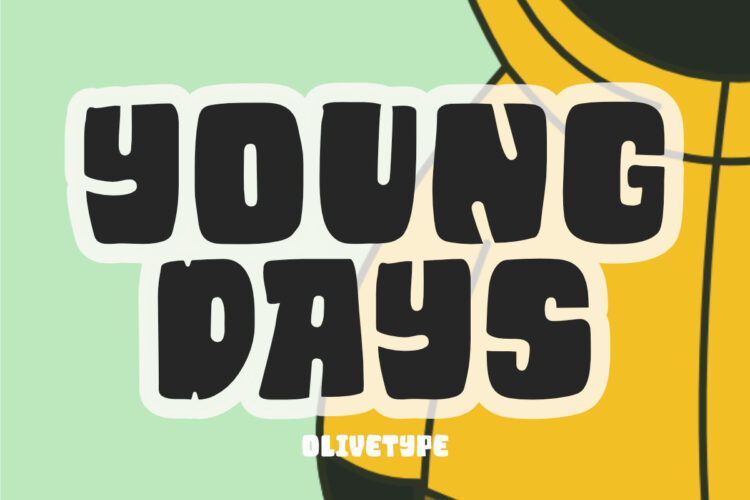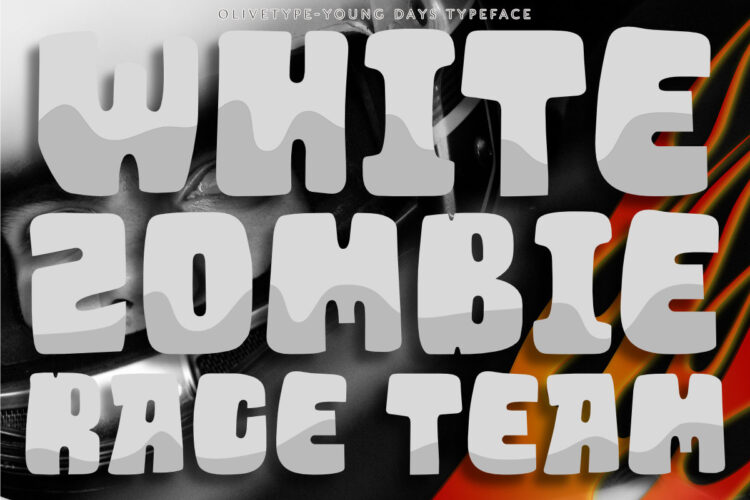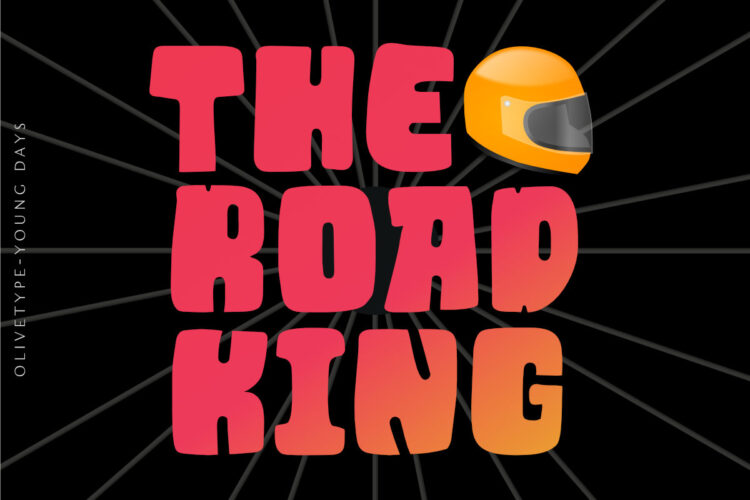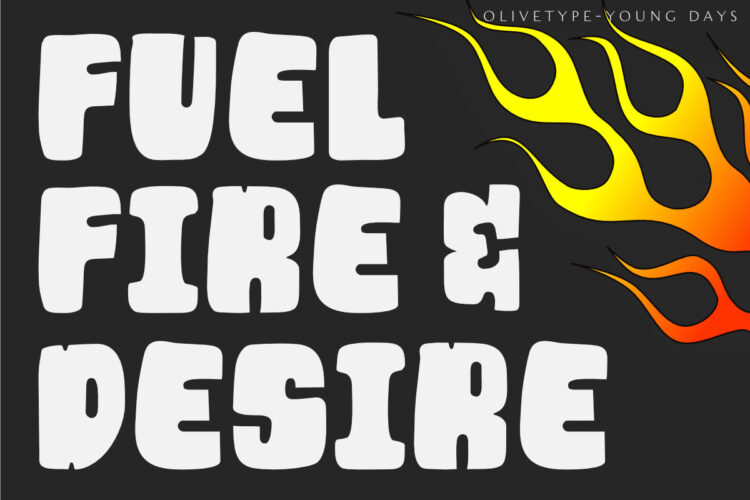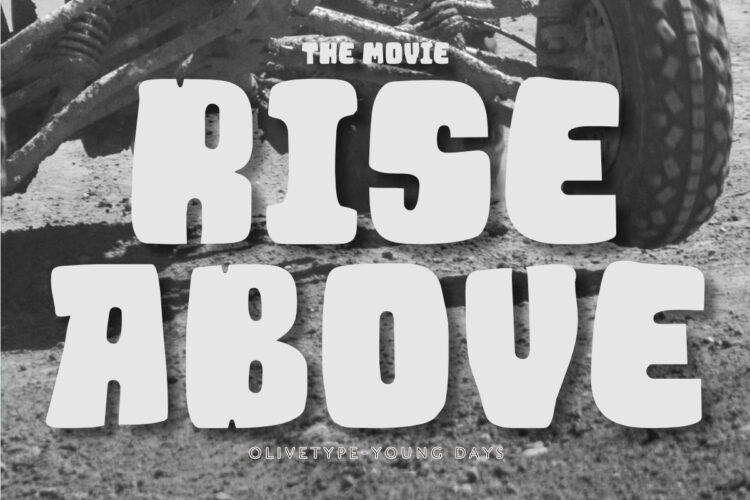
Young Days is a font for the confident. It’s big and loud, suitable for when you’re looking to create a statement. Whether building a poster or packaging your product, this font can help you make an impact.